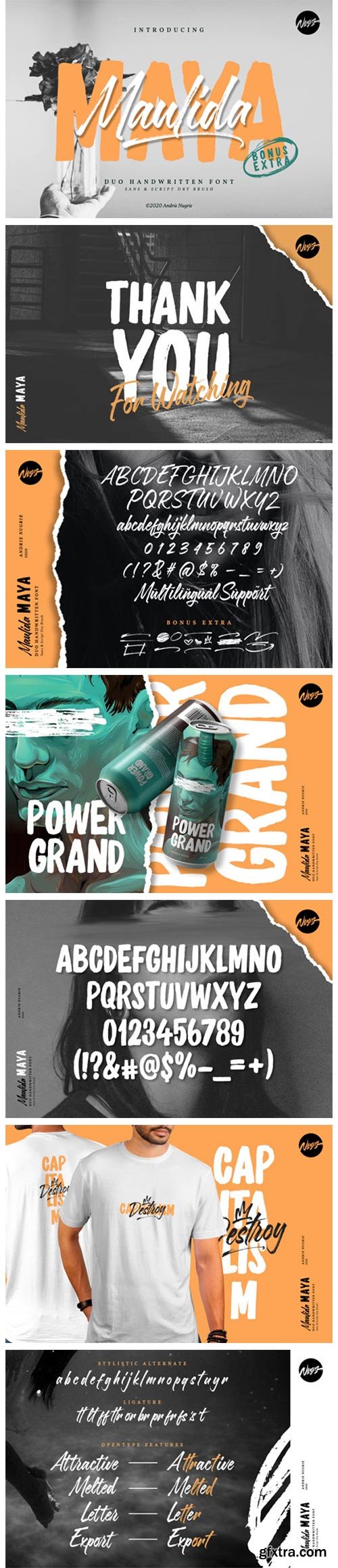
Maulida Maya Font
Maulida Maya is a bold duo font (display and brushed handwritten). Incredibly versatile, this font fits a wide pool of designs, elevating them to the highest levels. Add this font to your favorite creative ideas and notice how it makes them come alive!